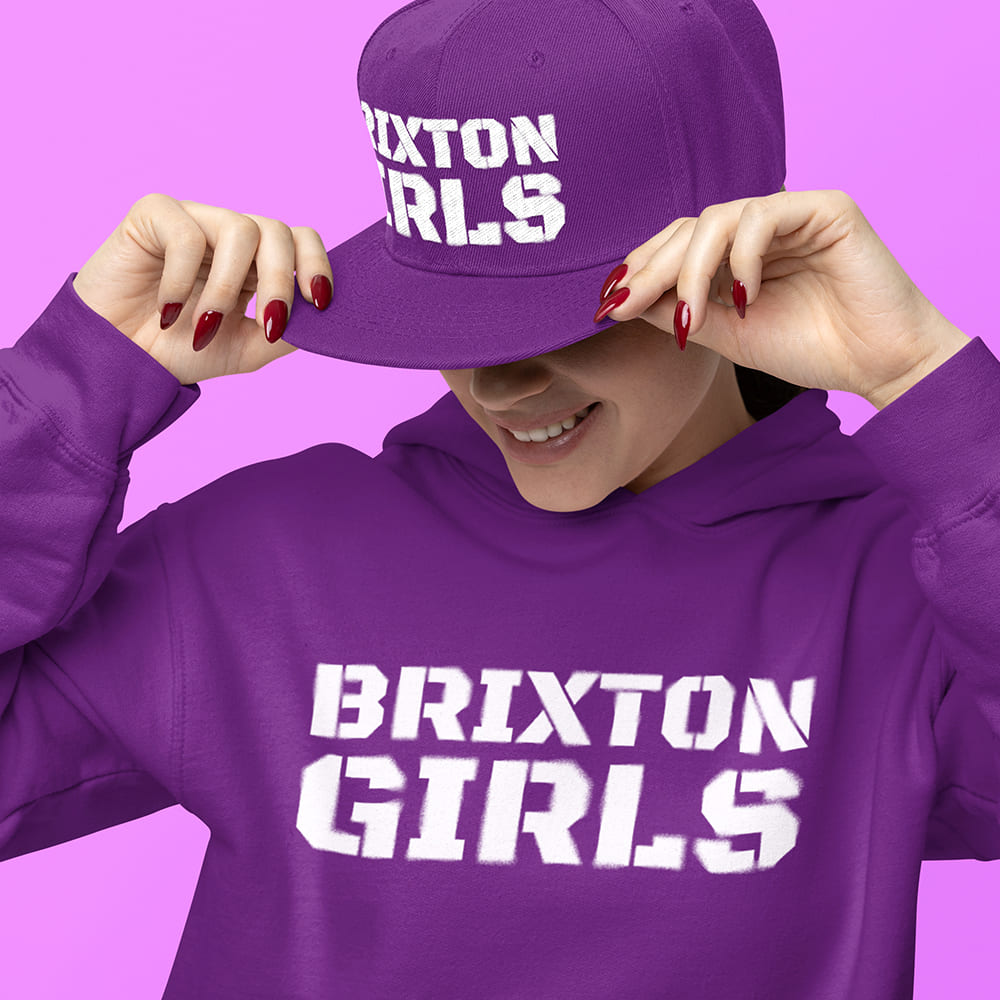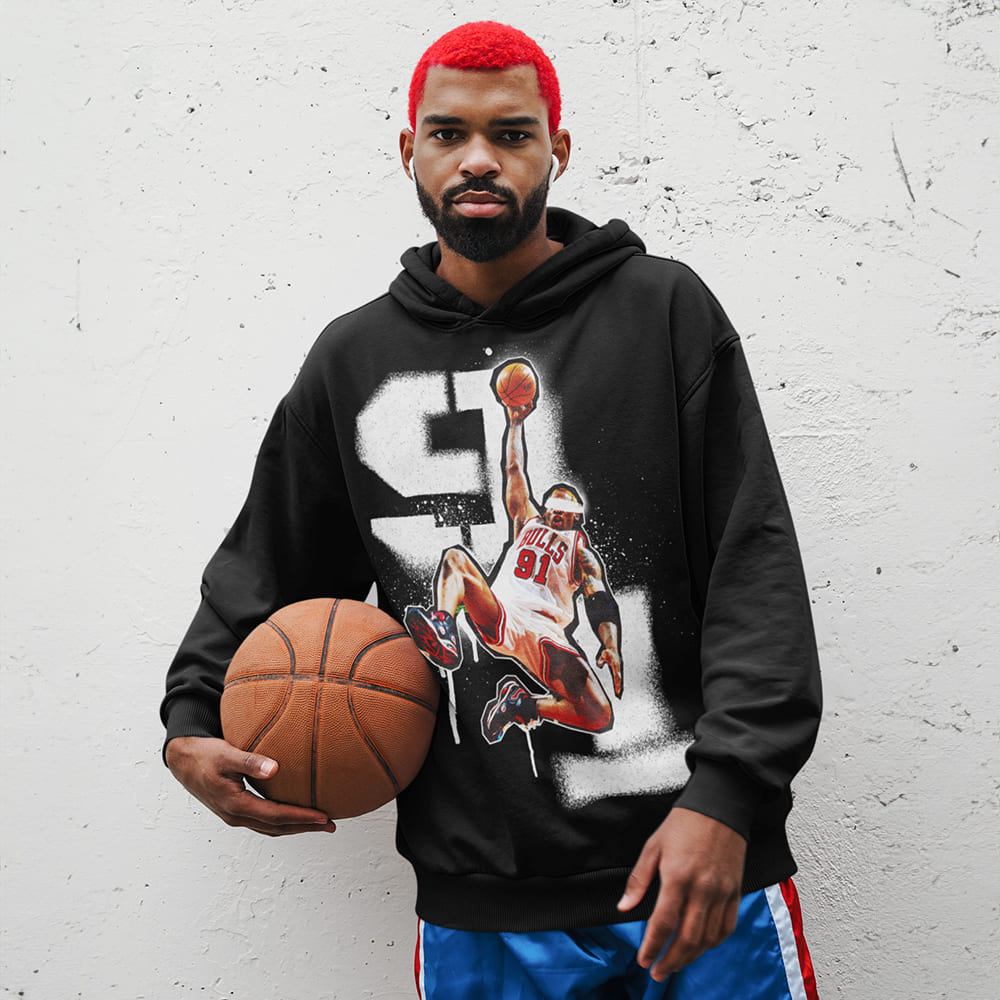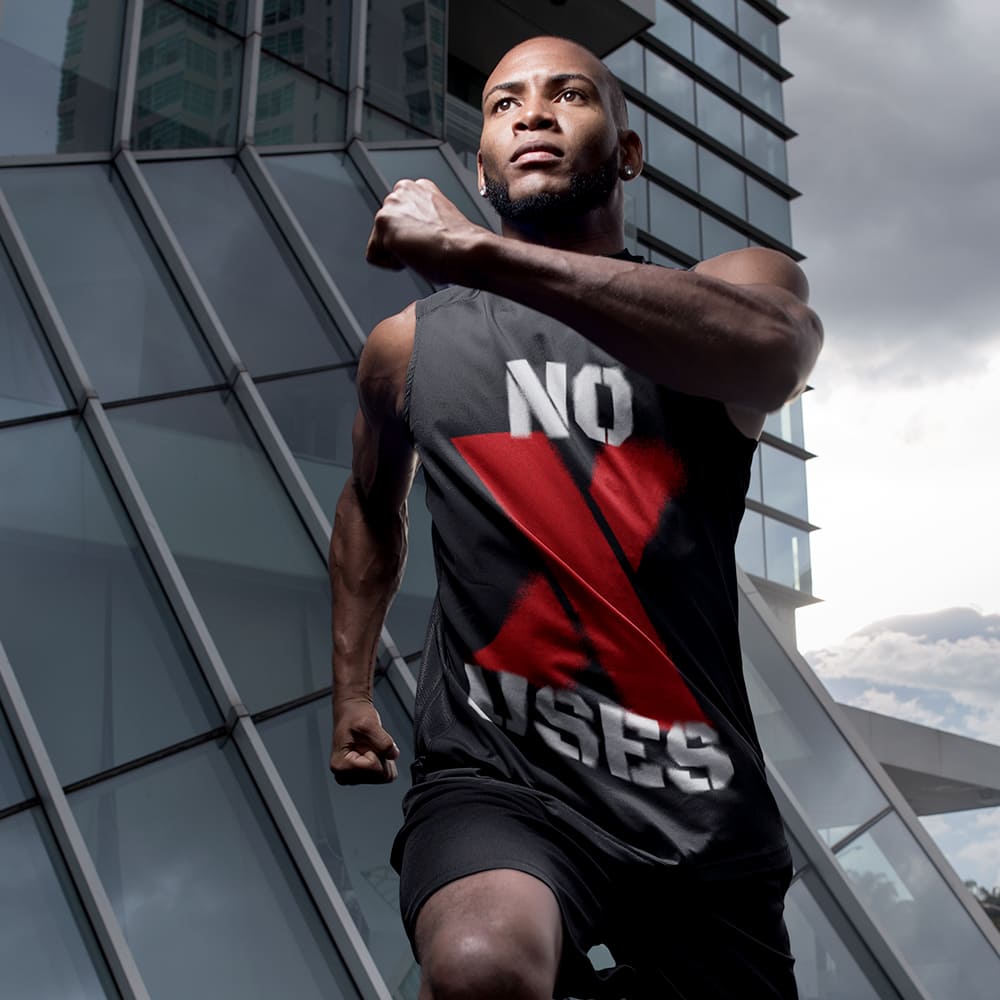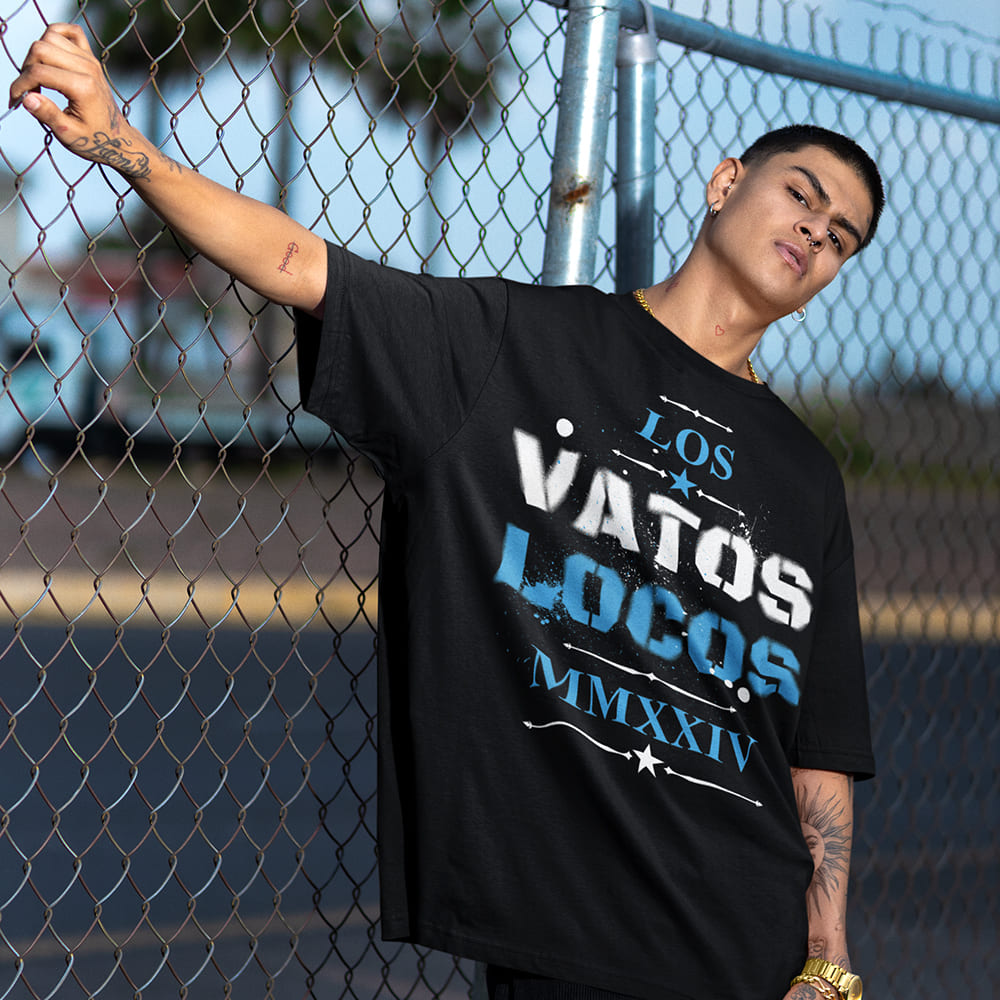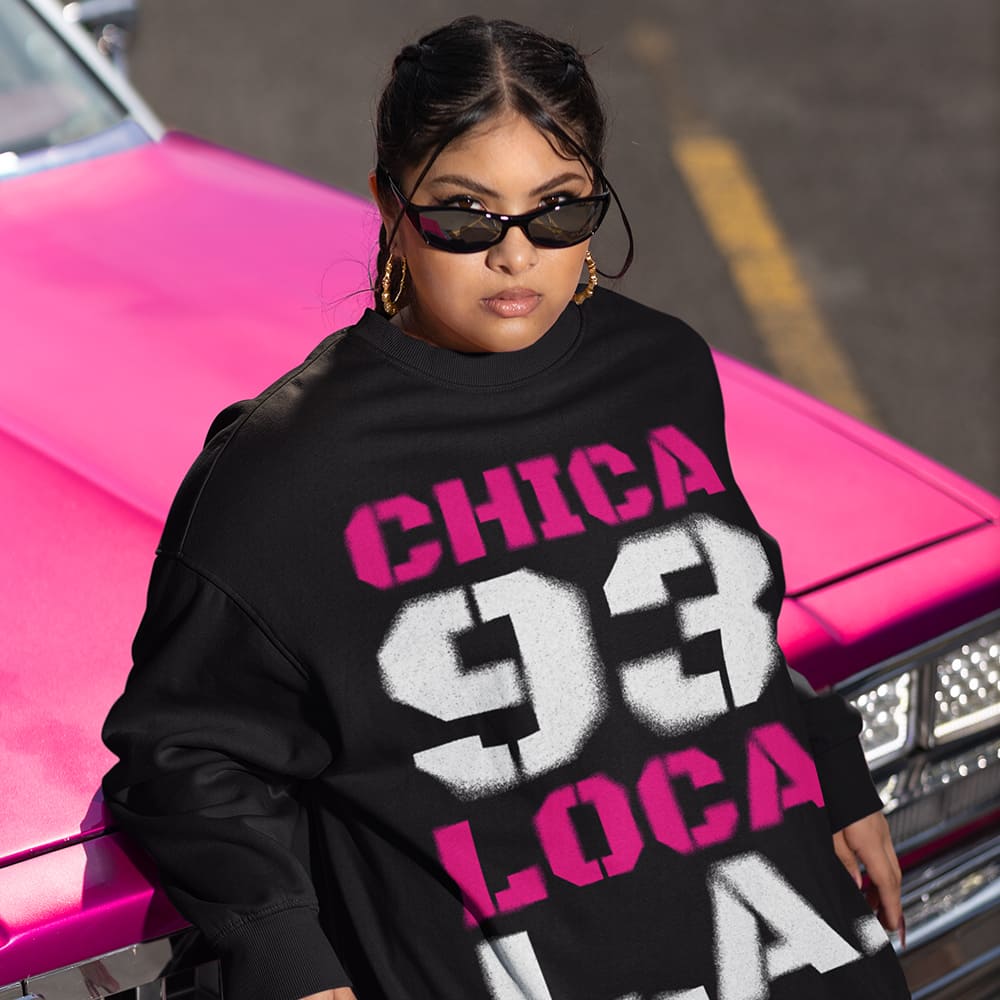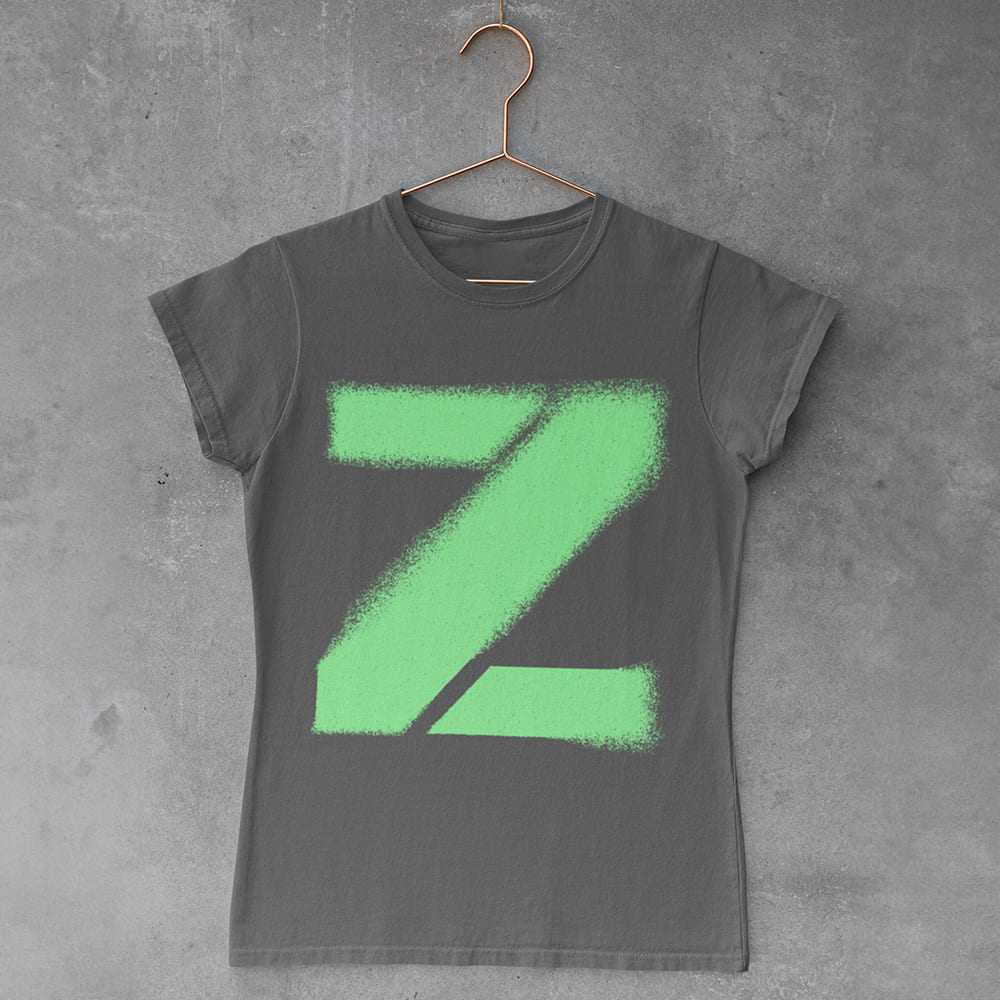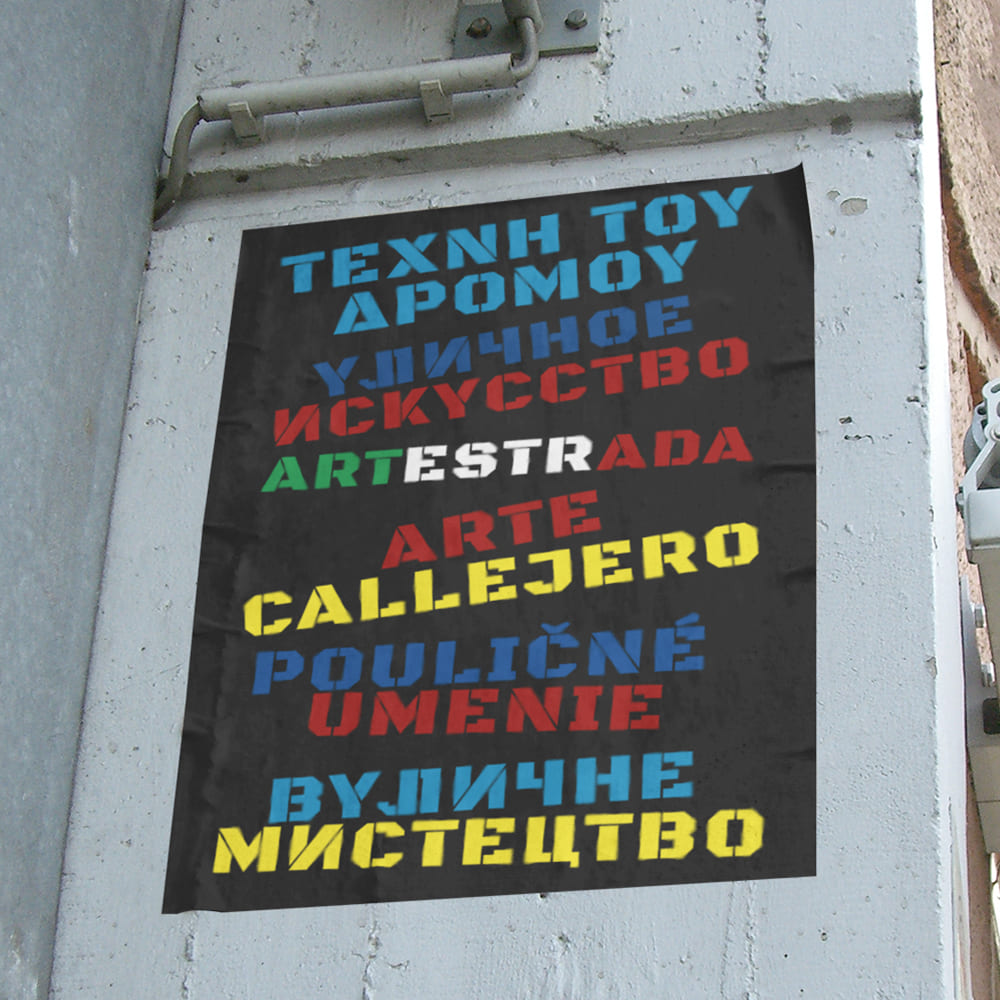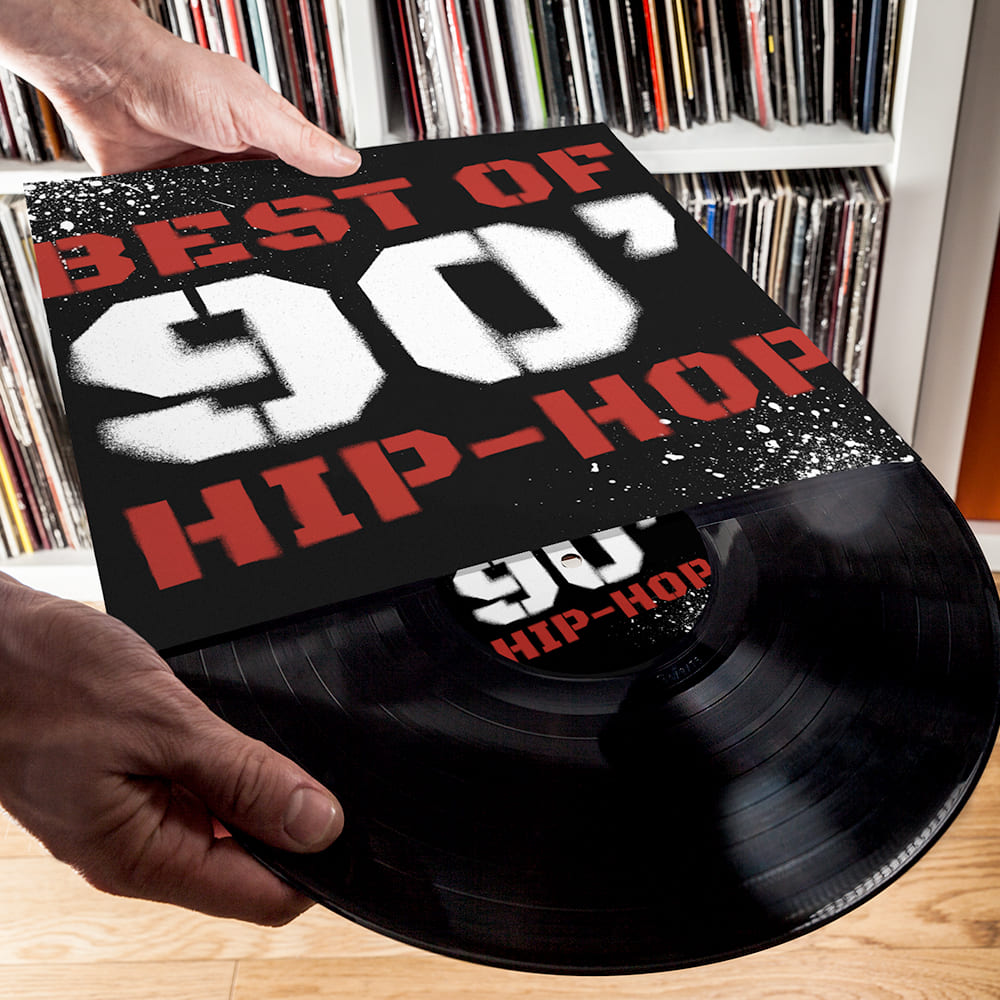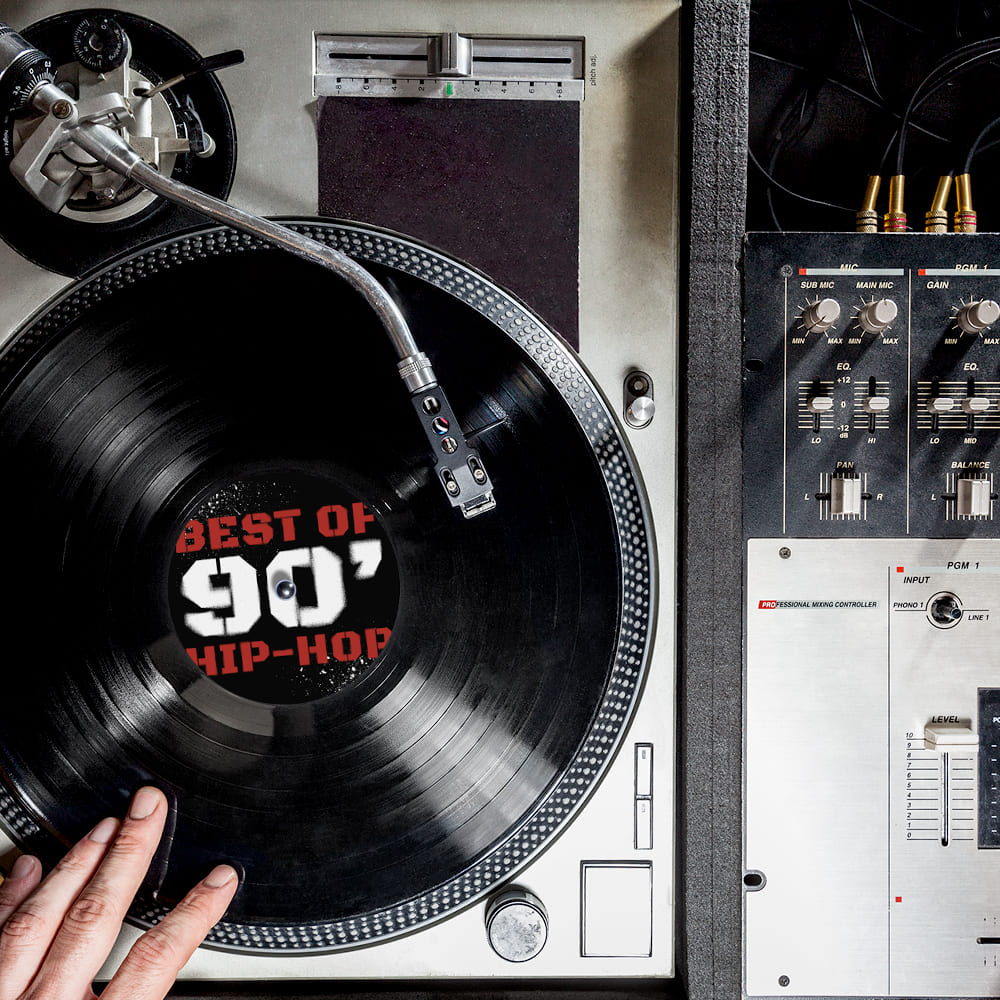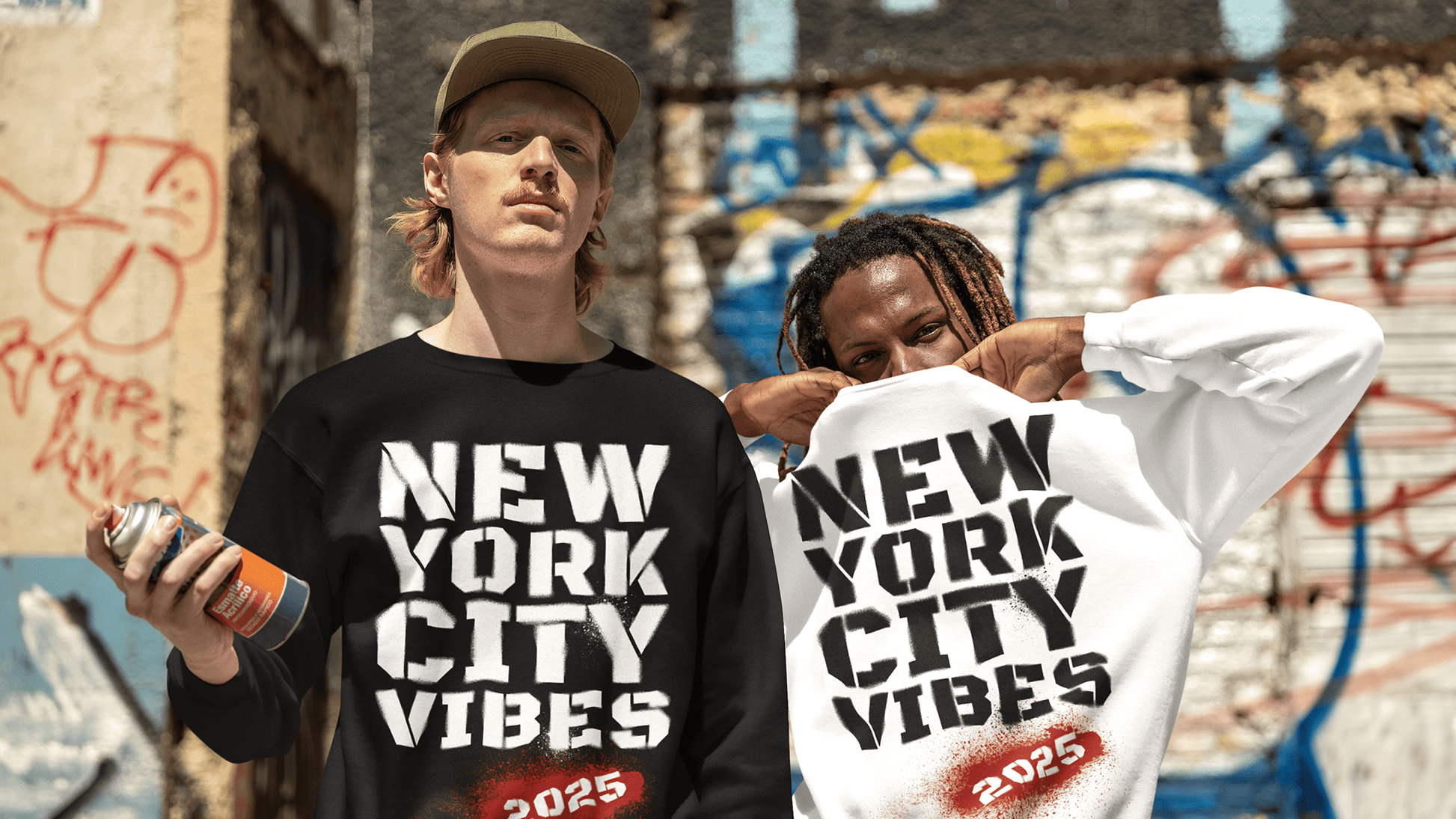
College Stencil Spray Paint Font
Urban, Raw, Unstoppable 🖍️🖤🎨
Real street art doesn’t need a gallery – it happens spontaneously, on rough concrete, in a garage, or on the walls of a high-rise. The College Stencil Spray Paint Font brings exactly this quick and dirty charm straight into your design. Inspired by style bombing and legendary stencil techniques, this font fuses raw energy with pure urban character.
Why Choose the College Stencil Spray Paint Font?
🔹 Rough & real – Sprayed straight from the can with a fat fat cap, this font looks like it was blasted onto a wall in a late-night graffiti session.
🔹 Perfect for bold statements – Whether for streetwear, event posters, graffiti projects, or social media, this font gives your design a true underground attitude.
🔹 Authentic street style – Inspired by the roots of style bombing – raw, direct, imperfect, but full of power and expression.
🔥 EVERY FONT ROCKER FONT COMES WITH 325 GLYPHS & SUPPORTS OVER 100+ LANGUAGES WORLDWIDE, INCLUDING CYRILLIC, GREEK & MORE.
Turn Your Design into a Canvas with the College Stencil Spray Paint Font
Make your message loud, unfiltered, and unmissable! This font is for those who feel the true spirit of graffiti and street art. And the best part? It’s available in multiple colors – giving you even more creative freedom!
🔹 Be raw. Be wild. Be street style.
🔹 Choose freedom. Choose attitude. Choose the College Stencil Spray Paint Font.